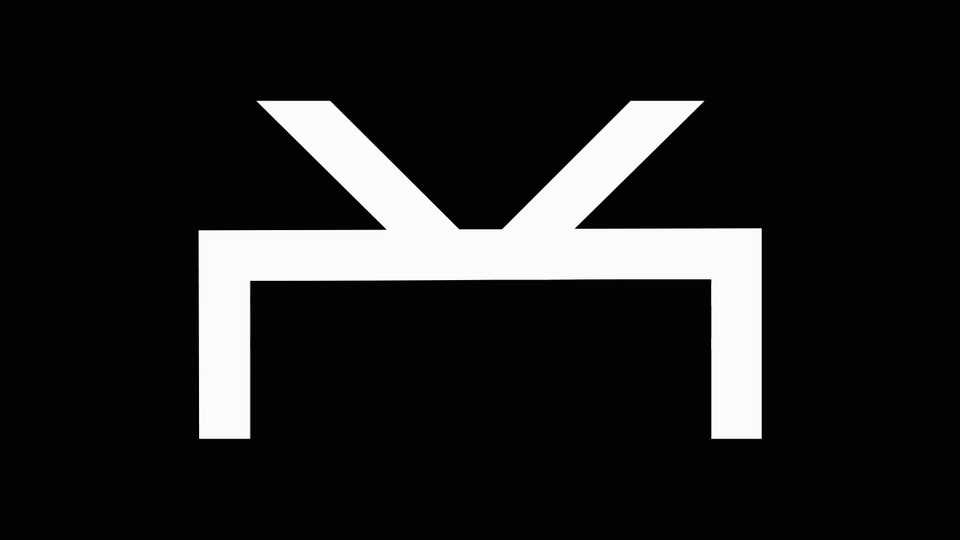
Download Norilsk font, a geometric display typeface inspired by the cold and harsh city Norilsk and its urban architecture. The font works best for posters, headlines and album artworks.
Designer: Viktor Sivak